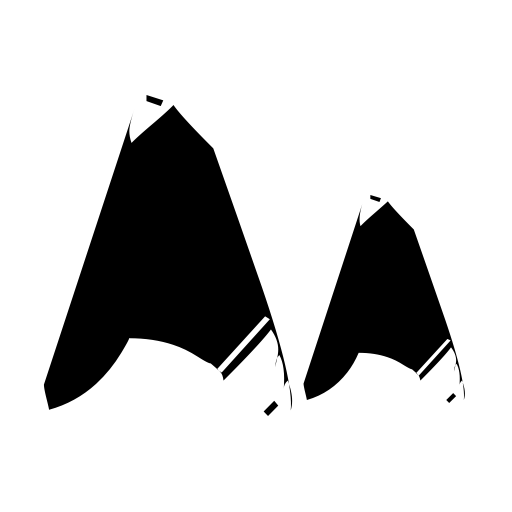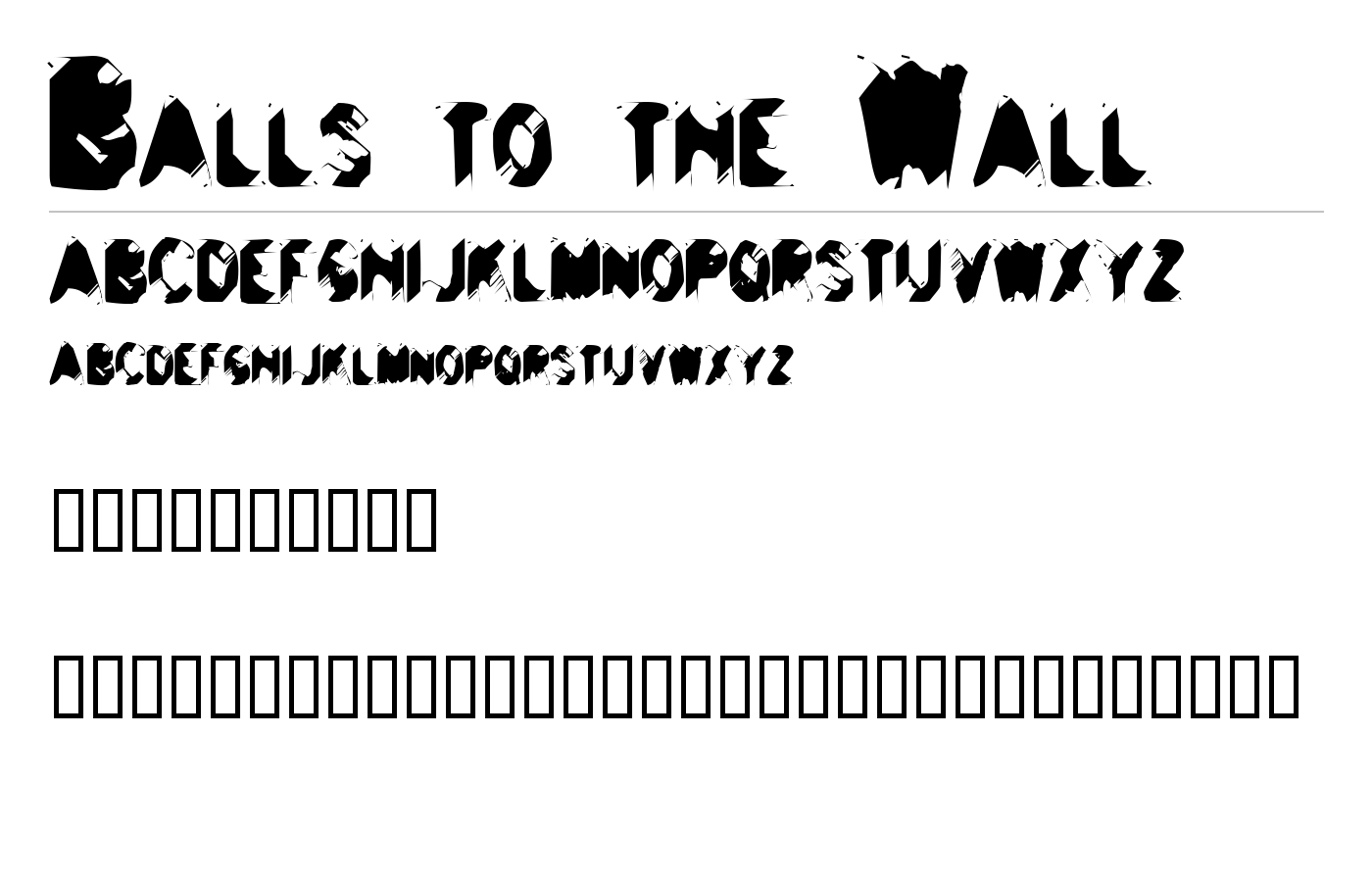
Balls to the Wall is a bold, heavy-weight display font with a distressed, rugged texture that gives it a striking, aggressive personality. Its sharp, irregular edges and condensed uppercase letterforms evoke a strong, rebellious vibe, making it perfect for edgy headlines, posters, and branding that demand attention and convey a tough, gritty mood. This font works best in designs where impact and raw energy are key, such as music, extreme sports, or urban-themed projects.
Balls to the Wall Font
About Balls to the Wall Font
| Font family | Balls to the Wall Font |